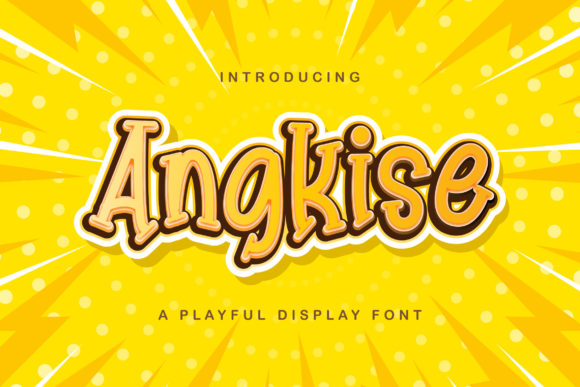
The Joy of Angkise Font: A Playful and Neat Display Font for Creative Projects
I’ll never forget the moment I stumbled upon the Angkise font while working on a fun project for a children’s birthday party. I was struggling to find the perfect font that would capture the playful and whimsical vibe of the event. As soon as I saw Angkise, I knew I had found the one! Its unique blend of playfulness and neatness instantly resonated with me, and I couldn’t wait to dive in and explore its endless possibilities.
An Honest Review of Angkise Font
What I Love About Angkise Font
• ✨ Playful and fun: Angkise font is perfect for informal or casual designs, adding a touch of whimsy and personality to any project.
• ✅ Neat and clean: Despite its playful nature, Angkise font remains surprisingly neat and clean, making it suitable for a wide range of creative projects.
• 💡 Endless variations: With its OpenType features and glyphs, Angkise font offers a world of creative possibilities, allowing you to experiment and try new things.
While Angkise font is an amazing addition to any design project, there are a few minor quirks to be aware of:
• 🤔 Limited use in formal designs: Due to its playful nature, Angkise font might not be the best choice for formal or professional designs, such as business reports or corporate branding.
• ⚠️ Some characters may require manual adjustment: As with any font, some characters may require manual adjustment to ensure proper spacing and alignment.
The Designer Inspiration Behind Angkise Font
While the true story behind Angkise font remains a mystery, it’s easy to imagine that its designer was inspired by the world of playful and whimsical design. Perhaps they drew inspiration from childhood memories of playing with letters and words, or from the world of graffiti and street art. Whatever the inspiration, Angkise font is a true gem that brings a touch of fun and personality to any design project.
Q: What type of projects is Angkise font best suited for?
A: Angkise font is perfect for informal or casual designs, such as children’s party invitations, social media graphics, and craft projects.